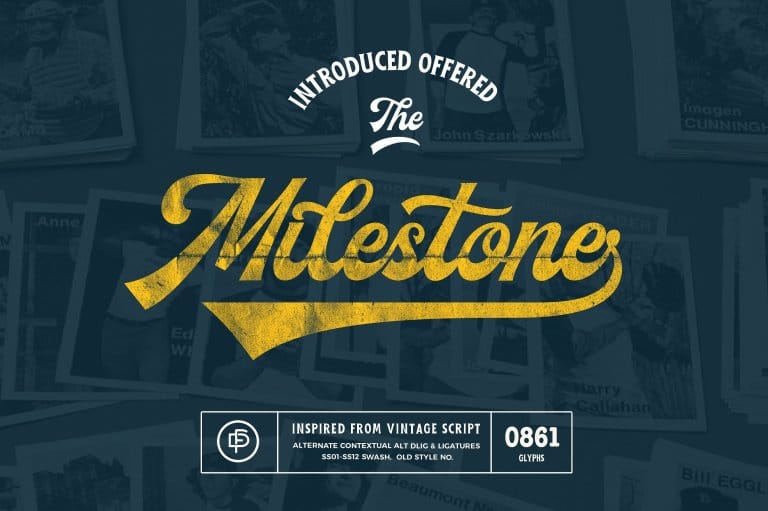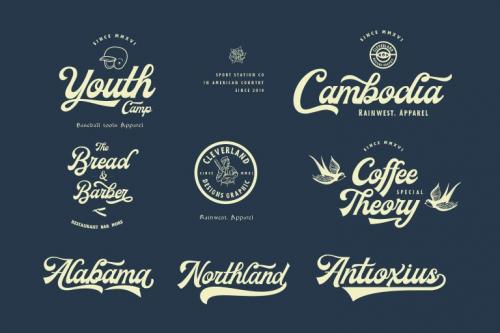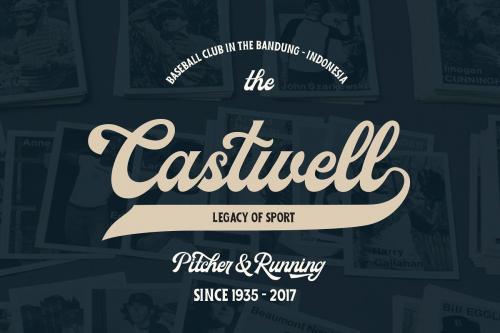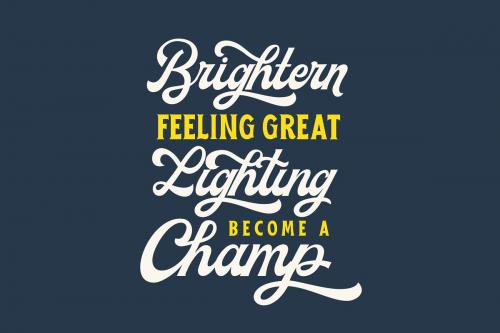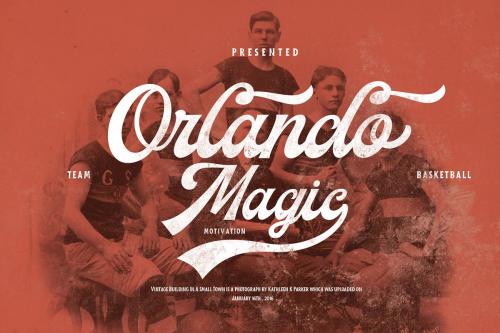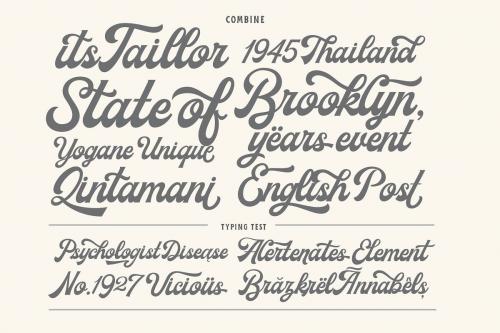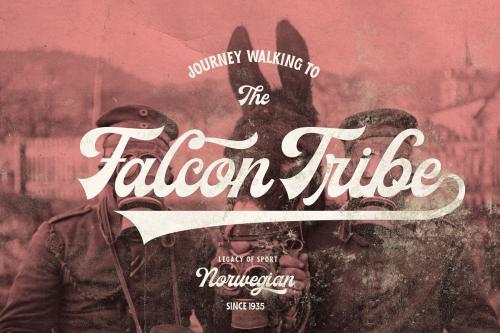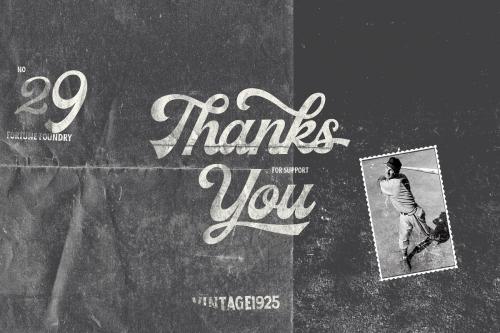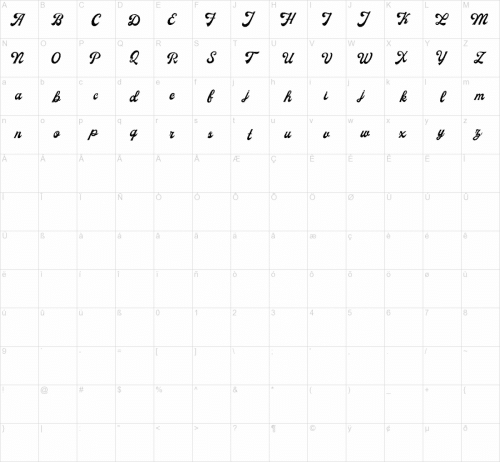
Milestone inspired from Vintage baseball sport, sign painting, labeling, suitable for logo, product names packages, labels, old fashioned coffee shops, bars and everything with specific characteristics of past times. Milestone is great combine to create something good and vintage feel.
- Designer: Fortunes Co